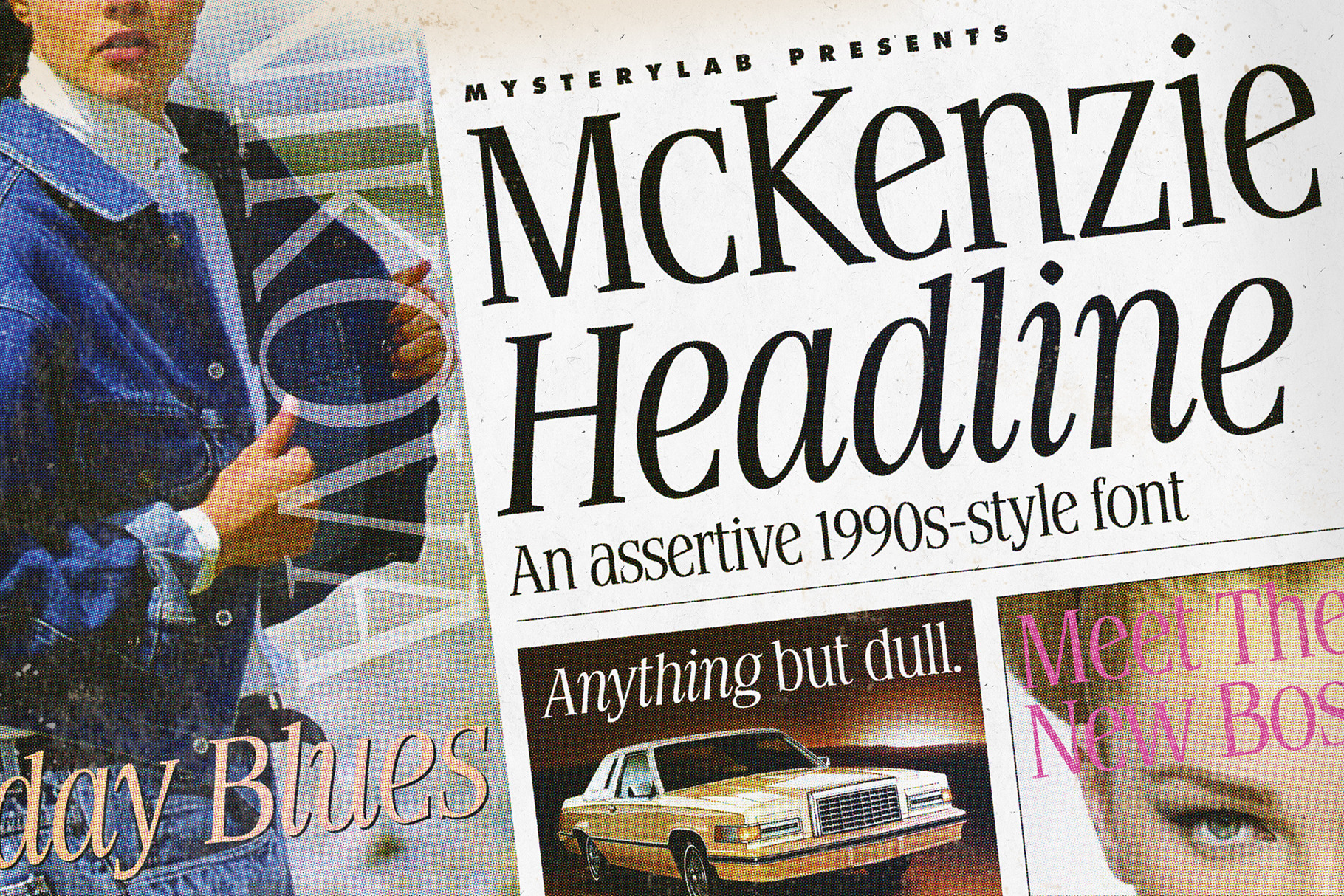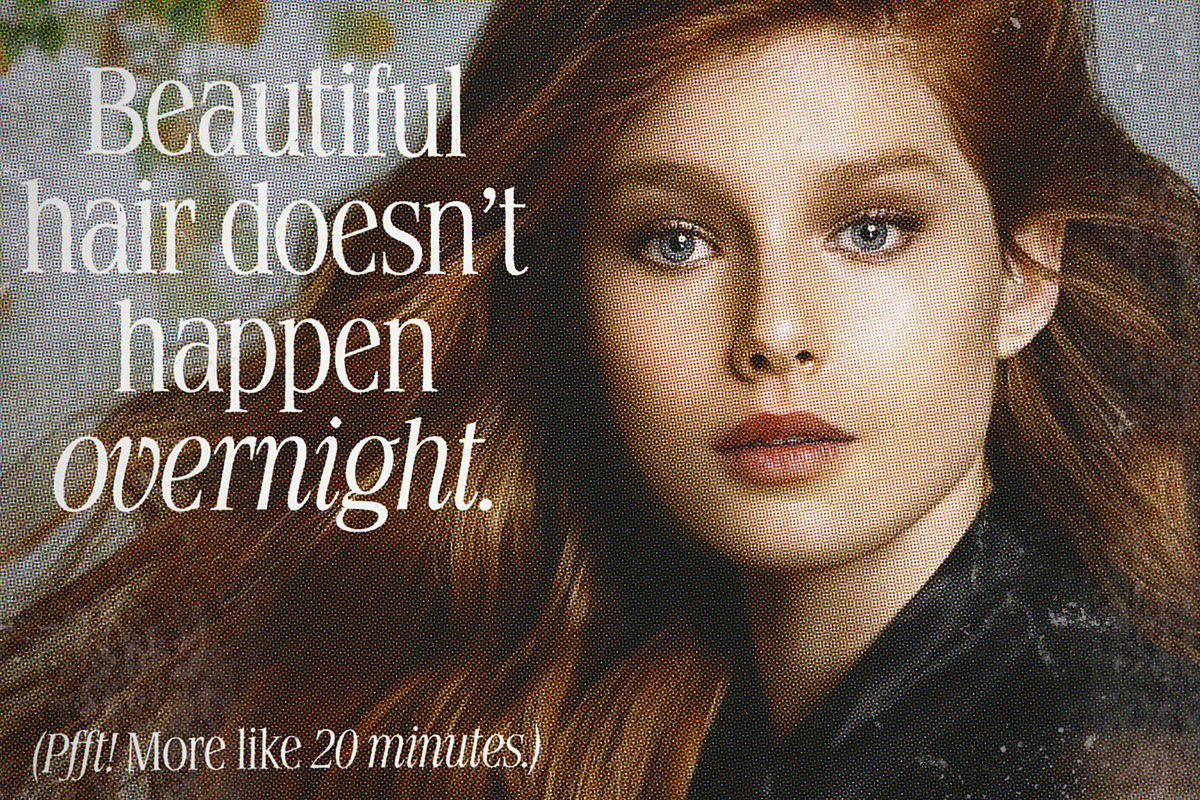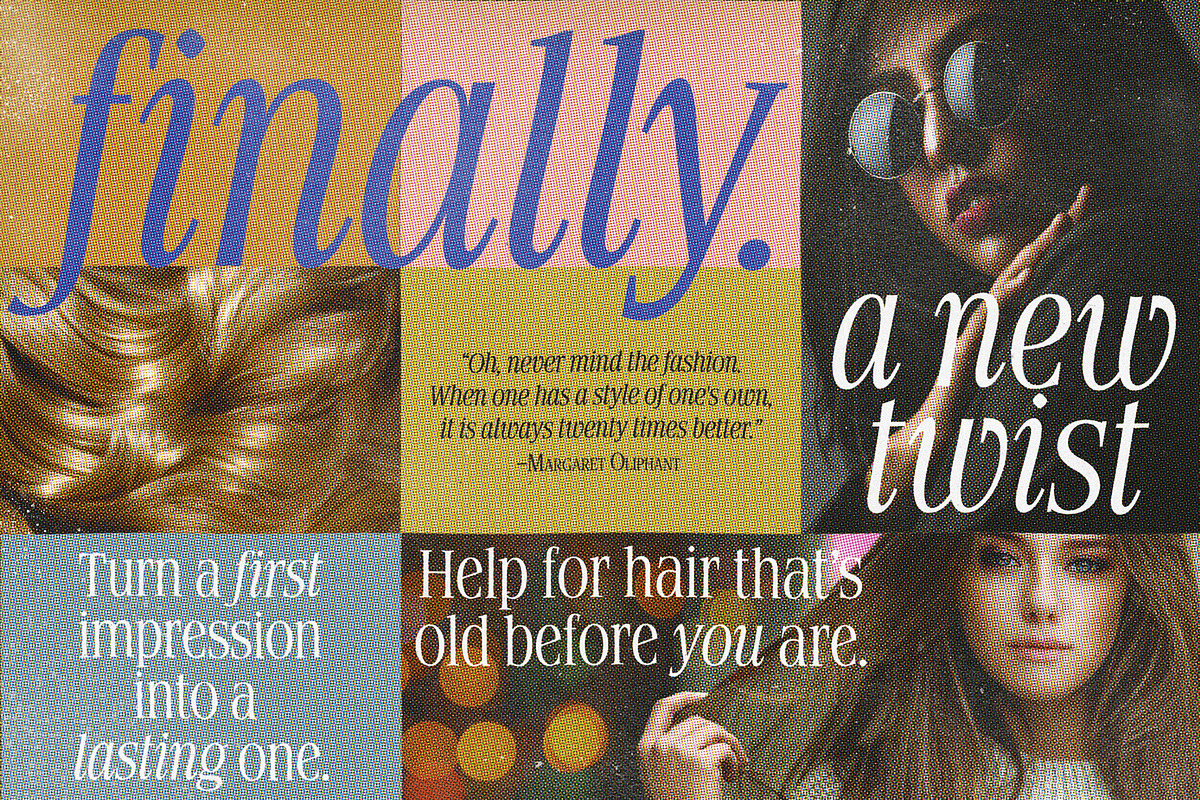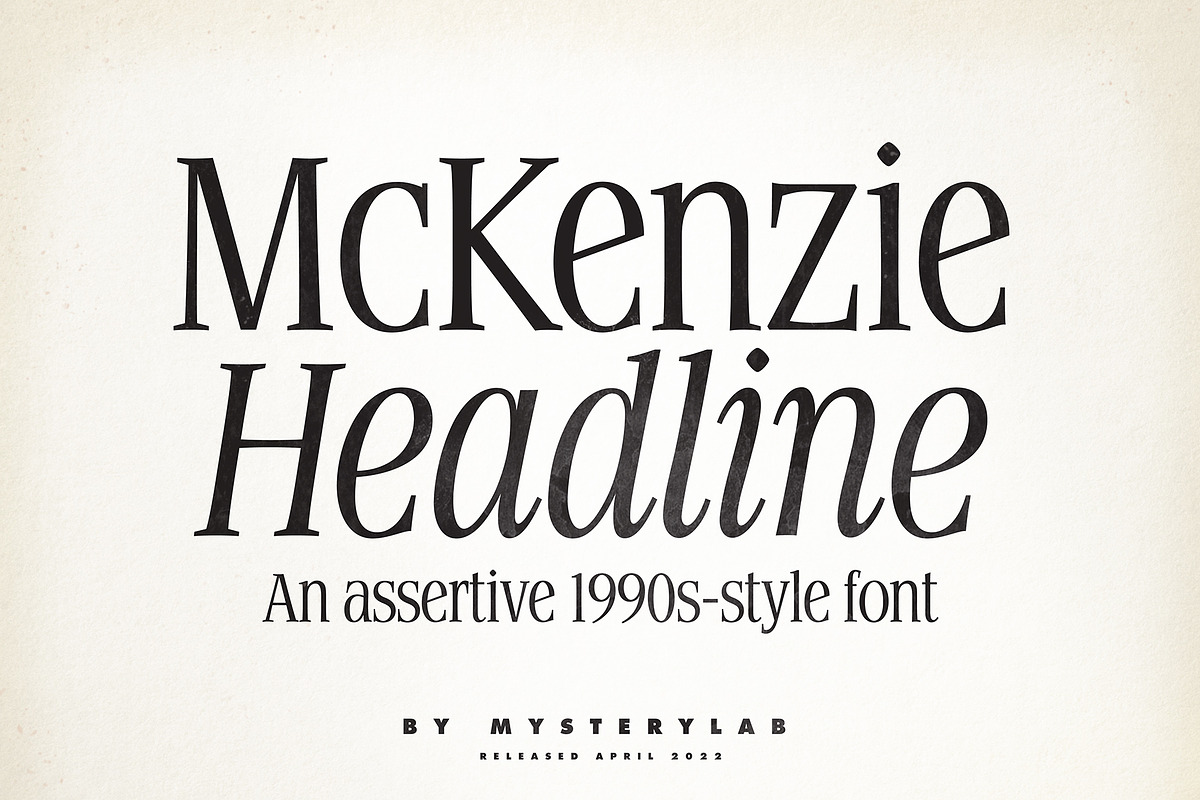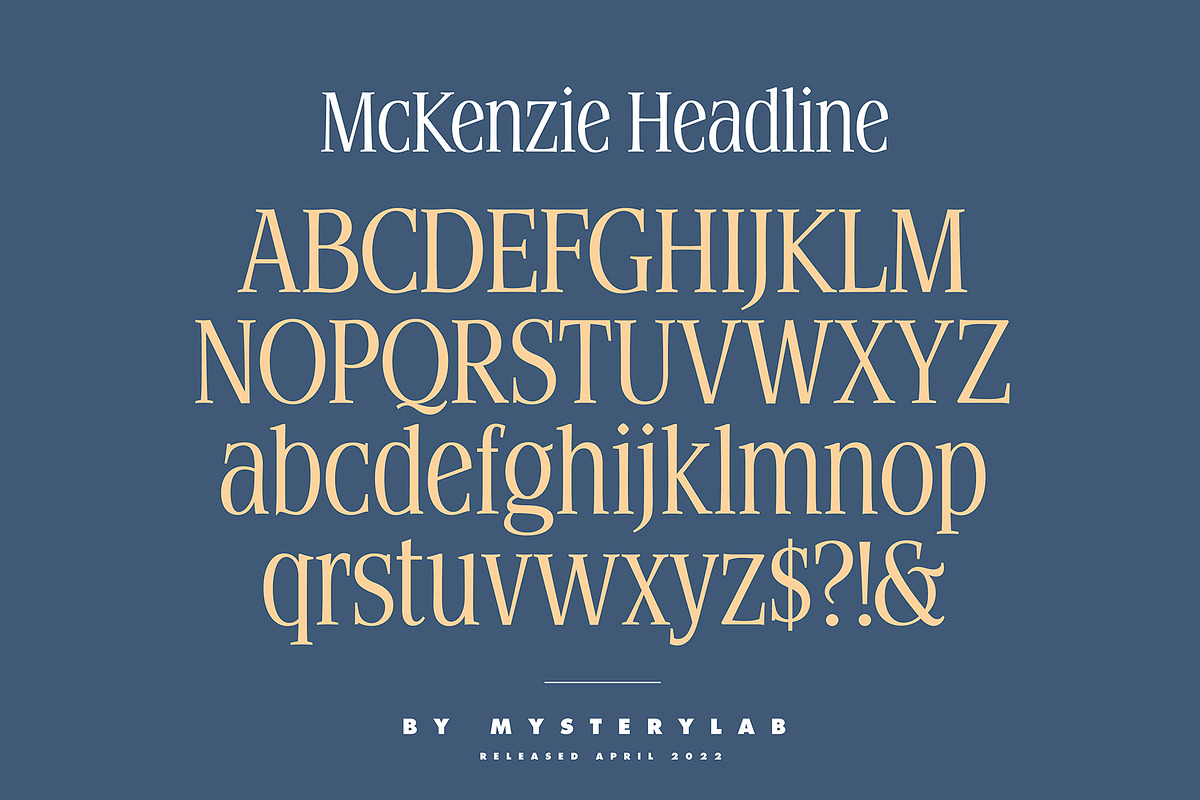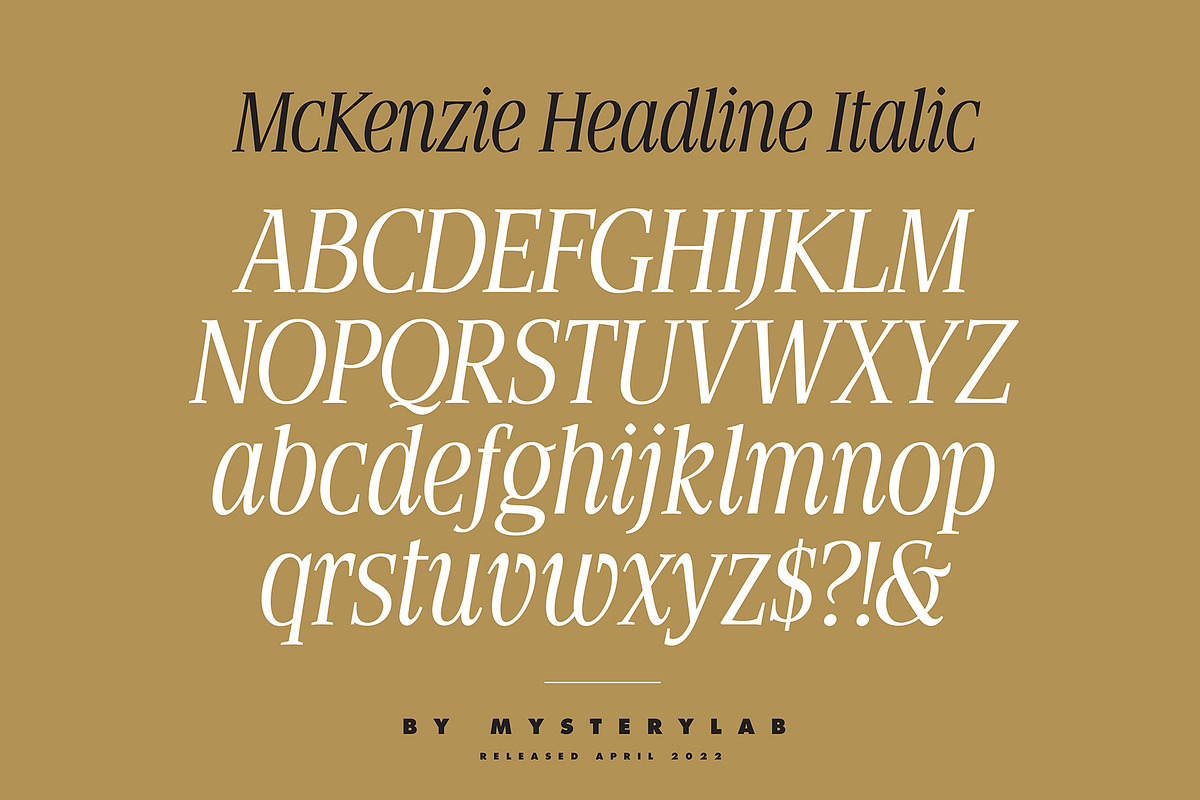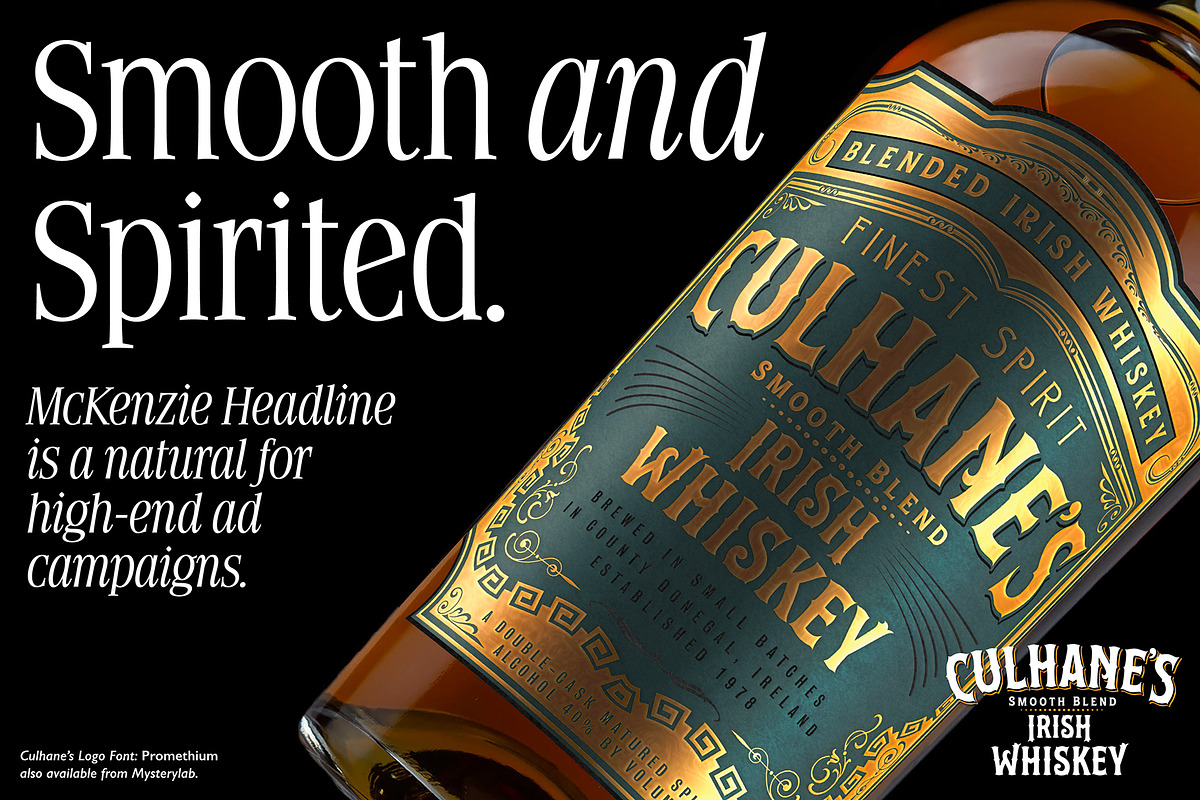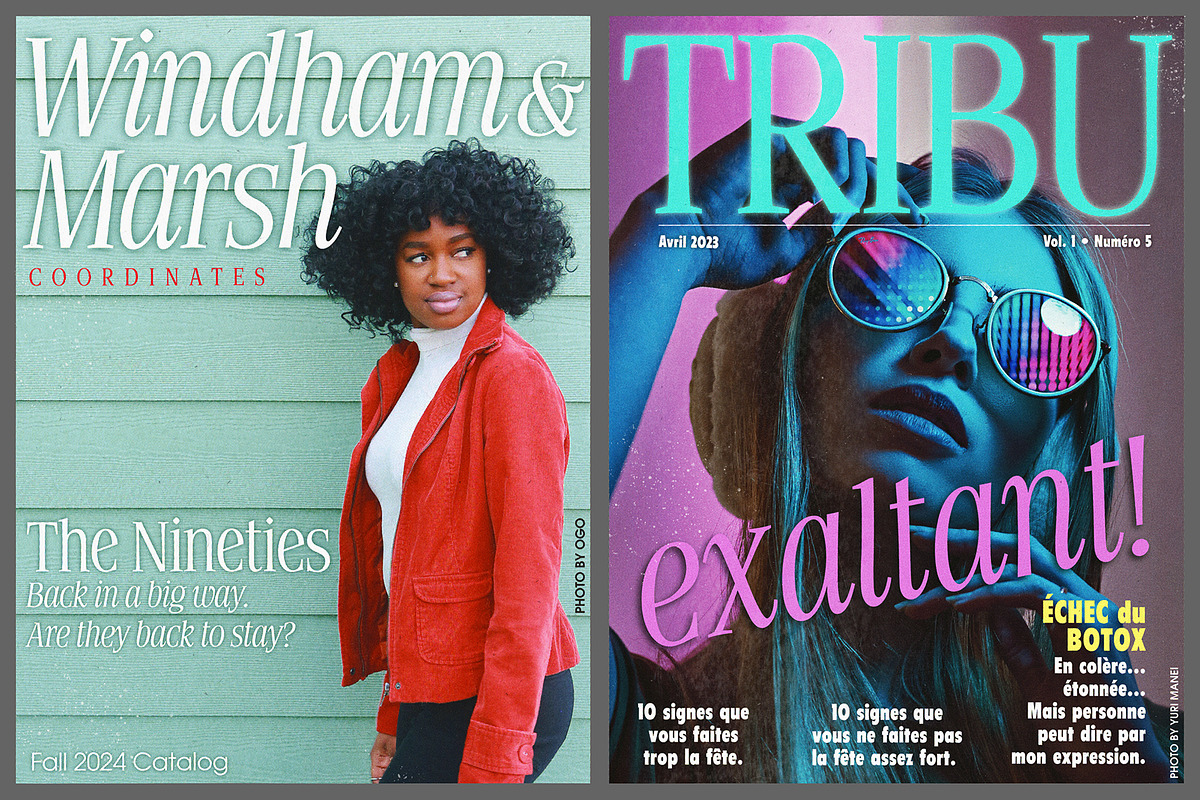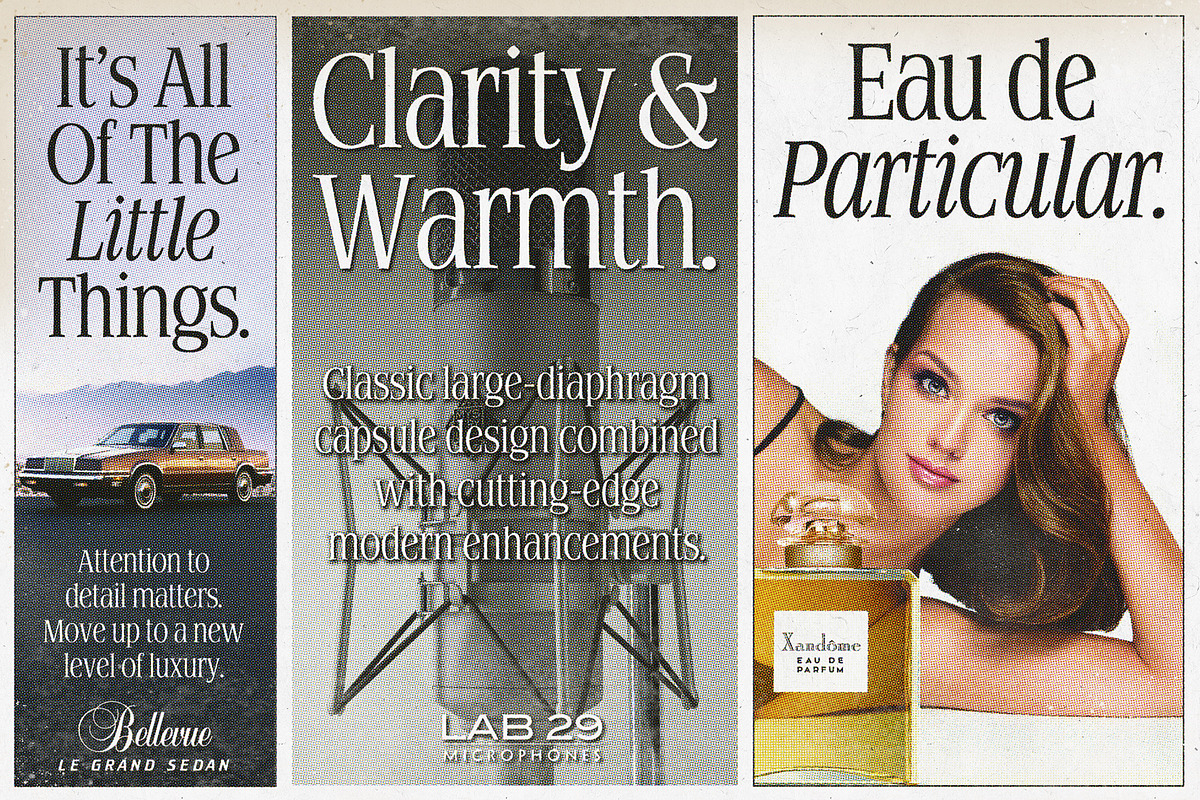
McKenzie Headline Nineties Font
Past is future, all over again. If you're after that unmistakable Late 1980s - Early 1990s look, McKenzie Headline is your go-to font pair. This brand-new design is a careful distilling of the heart of typographic trends in print media that we loved 'back in the day.' The crisp, condensed serif and its matching italic font speak clearly and assertively, and they will enhance any catchy headline, any magazine-style couture or cosmetics spread, or even an all-capitals magazine logo. Got something to say? Say it loud and clear with McKenzie Headline.